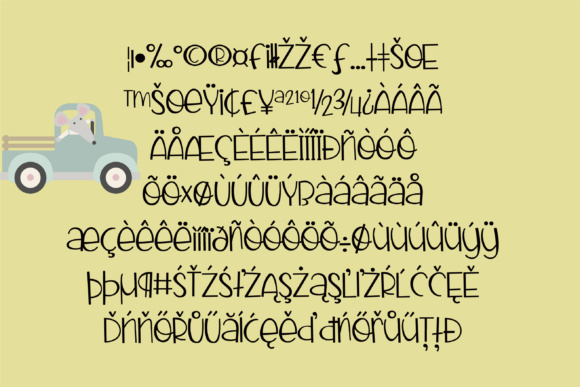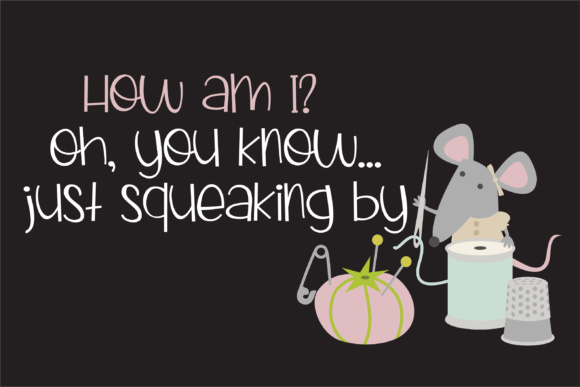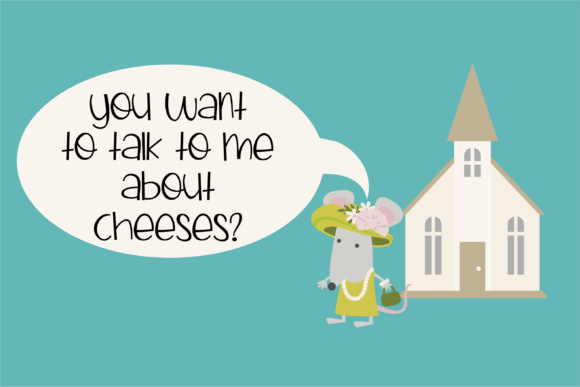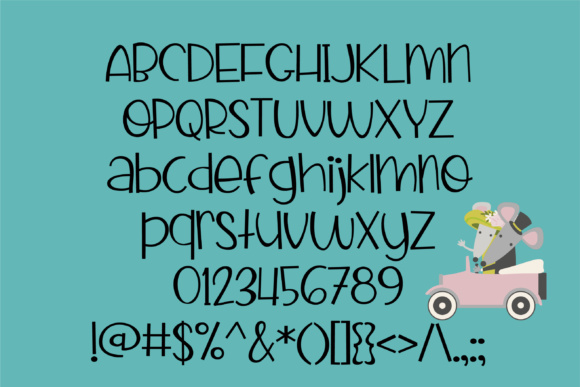
HomeScript FontsMousetrap Font Script Fonts Mousetrap Font FacebookXPinterestWhatsApp Mousetrap Font Poster 2 Mousetrap Font Poster 3 Mousetrap Font Poster 4 Mousetrap Font Poster 5 About Mousetrap Font Mousetrap is a hand-written font with a youthful quality that adds a bit of whimsy to any project. DOWNLOAD NOW People also explored Christmas Greeting Font Leaf Bella Canvas 3001 Funky Tee Mockup Oryza Sativa Font Ruglhe Script Font Black Swan Font Swingset Font Hellosty Blast Font Funtery Duo Font Nerd Font 335 0 TagsMousetrap Font Previous articleFinnegan Fine FontNext articleFabinache Font LEAVE A REPLY Cancel reply Comment: Please enter your comment! Name:* Please enter your name here Email:* You have entered an incorrect email address! Please enter your email address here Website: Save my name, email, and website in this browser for the next time I comment. Personal Use Free Adelfa Personal Use Free Read more about this font Omellia Personal Use Free Read more about this font Proudly Personal Use Free Read more about this font Bonifaciy Personal Use Free Read more about this font BLOG The 10 Best Handwriting Fonts to Add Personality to Your Designs 10 of the Best Handwriting Fonts for Adding Personality to Your Designs There will undoubtedly be no other better choice than handwriting fonts to give... Top 10 Handwritten Fonts That Elevate Your Designs Exploring Font Trends Top 7 Google Fonts Alternatives for Faster and Privacy-Friendly Web Design (2025)